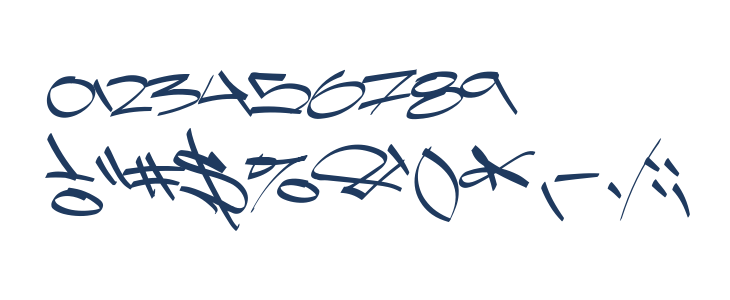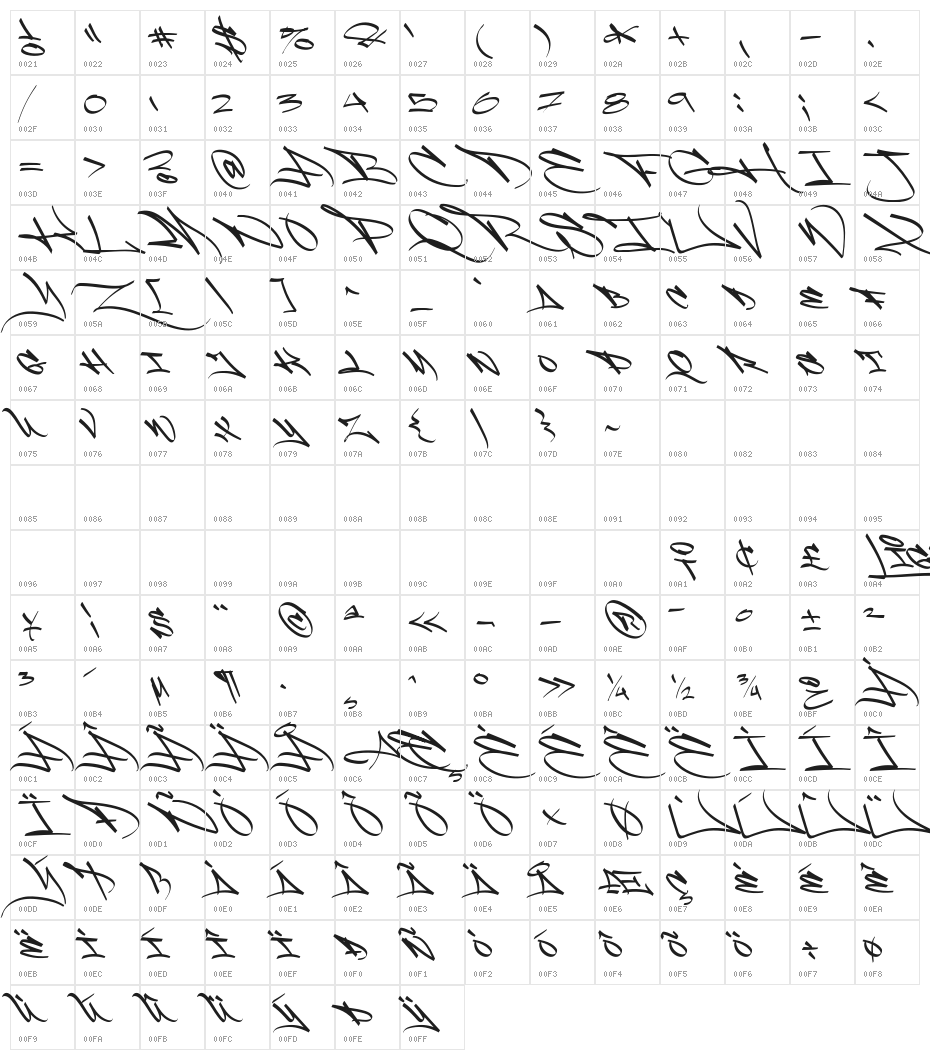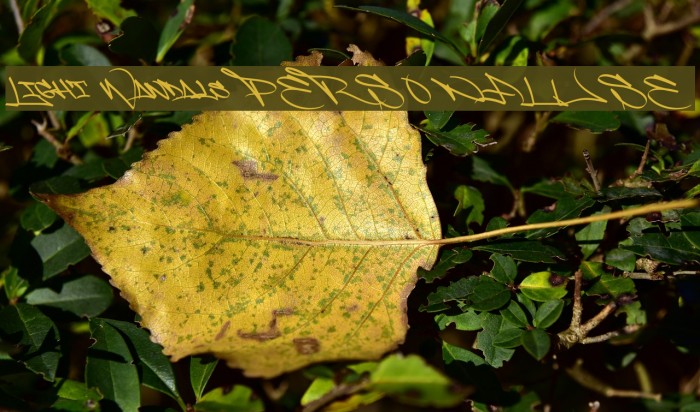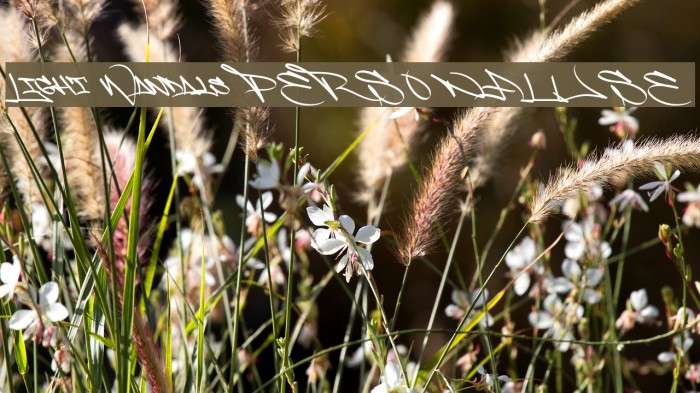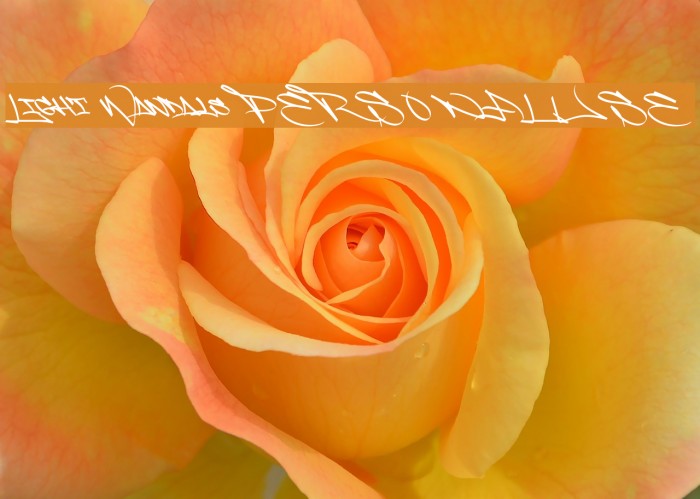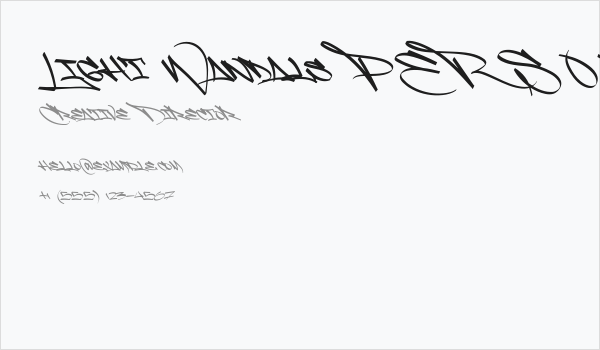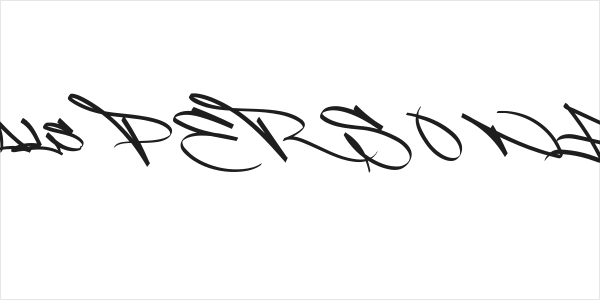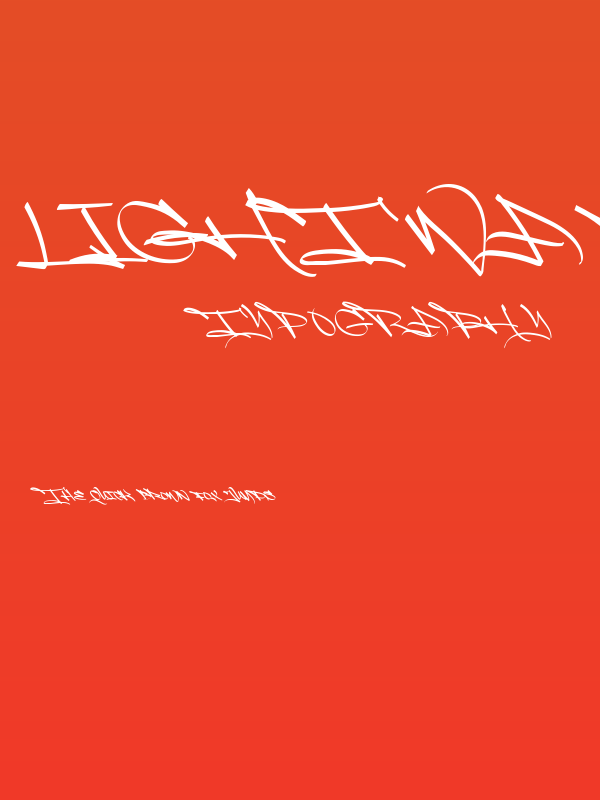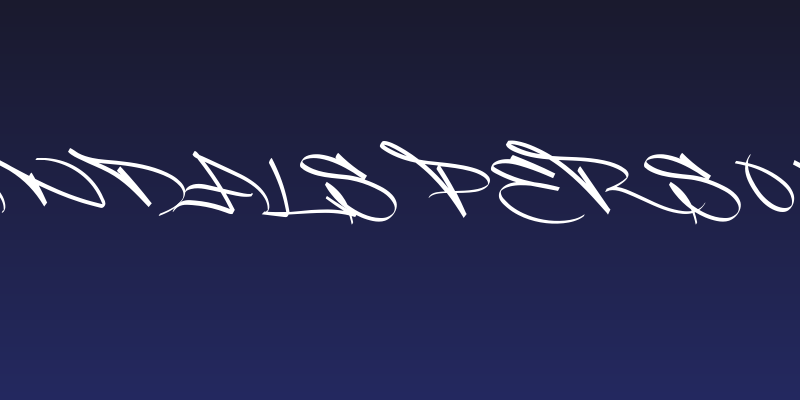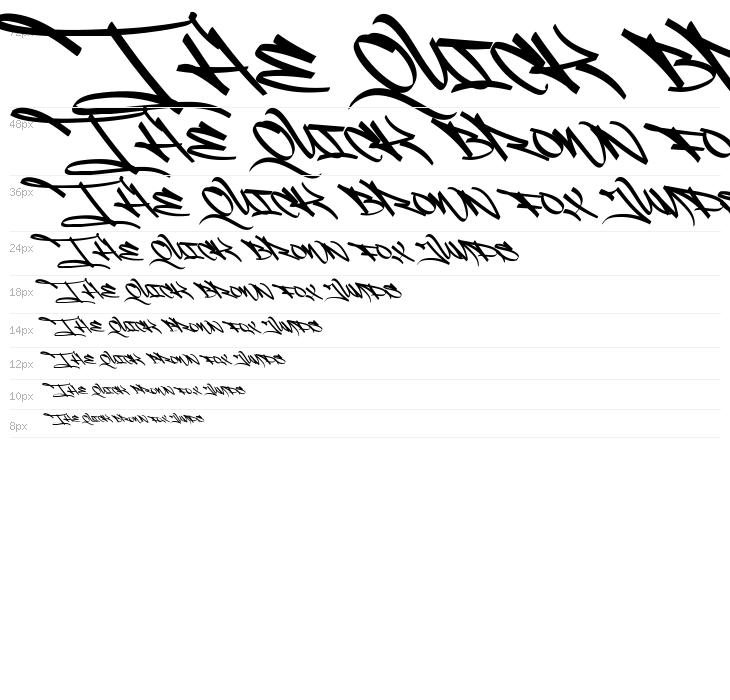
Light Wandals PERSONAL USE Font
Light Wandals PERSONAL USE Description
This font showcases a bold and dynamic graffiti style, characterized by sharp angles and fluid strokes that mimic the energetic flair of street art. Each letter is uniquely crafted with an urban edge, featuring exaggerated curves and pointed ends that convey a sense of movement and rebellion. The uppercase and lowercase letters maintain a consistent style, while the numbers and special characters integrate seamlessly, adding to the overall cohesive look. This font captures the essence of modern graffiti, making it ideal for projects that require a bold and artistic statement.
| Proposed Projects | Ideal for street art-inspired designs, urban-themed posters, music album covers, and edgy branding projects. |